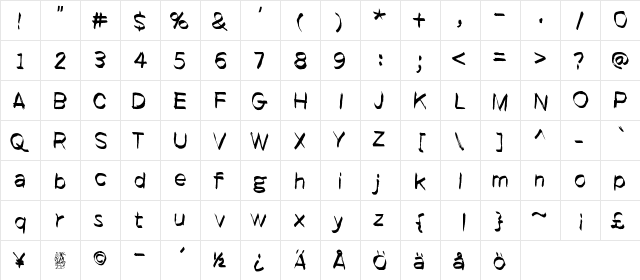
It started here Regular
Design Context for It started here Typeface
It started here is a composed and adaptable typeface that performs quietly and consistently across a wide range of design contexts.